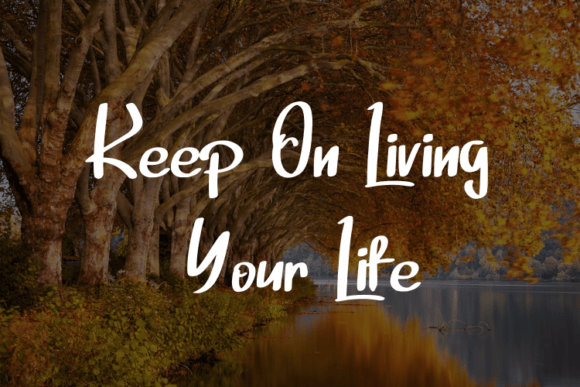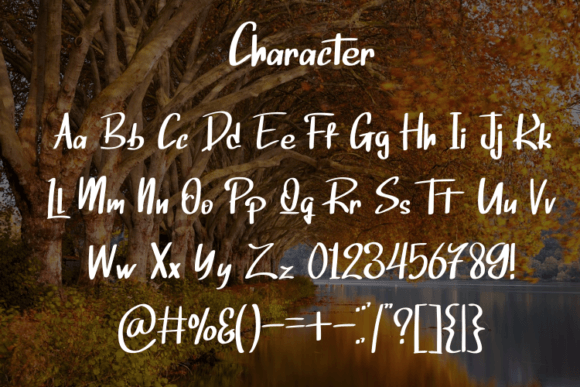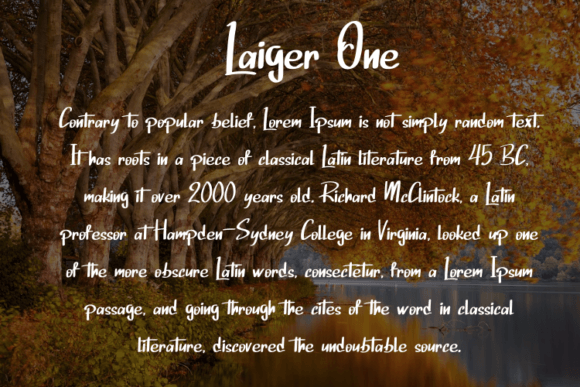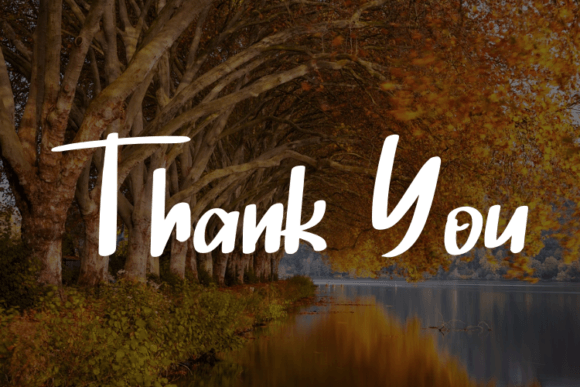
Introduction to Laiger One Font
Laiger One is a fun and friendly handwritten font.
Add it to your crafty ideas and you will love the results .
Key Features of Laiger One Font
Why Choose Laiger One Font?
Laiger One Font offers exceptional quality and versatility, making it a valuable addition to your design toolkit. Whether you’re creating for personal projects or commercial use, Laiger One Font delivers professional results.